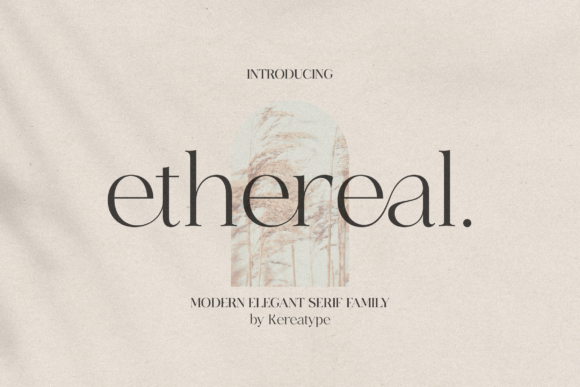
Introducing the captivating and enchanting Ethereal Font, a serif masterpiece designed by kereatype. If you're searching for the perfect font to elevate your wedding invitations and add a touch of elegance, look no further. Ethereal Font is the epitome of sophistication, offering a modern twist to the classic serif style.
With its various weights, this font family provides endless possibilities for creating stunning designs. Whether you're crafting a logo or working on branding materials, Ethereal Font will effortlessly infuse your projects with class and style. Prepare to be amazed as this font transforms your creations into works of art.
What sets Ethereal Font apart from the rest is its exquisite and seductive extras. These sexy stylish elements add a touch of allure and uniqueness to your designs, making them stand out from the crowd. Captivate your audience and leave a lasting impression with logos that exude class and sophistication.
Immerse yourself in a world of creativity and imagination with Ethereal Font. Let your designs speak volumes and evoke emotions with every stroke. Whether you're a professional designer or simply looking to add a touch of elegance to your personal projects, this font is a must-have.
Don't settle for ordinary. Embrace the extraordinary with Ethereal Font. Elevate your designs and captivate your audience with its timeless beauty. Let your creativity soar and create designs that are as unique as you are.
Unleash the potential of Ethereal Font and embark on a journey of artistic expression. Embrace its fashionable and modern charm, and watch as your designs come alive with elegance and finesse. Experience the magic of Ethereal Font for yourself and unlock a world of endless possibilities.